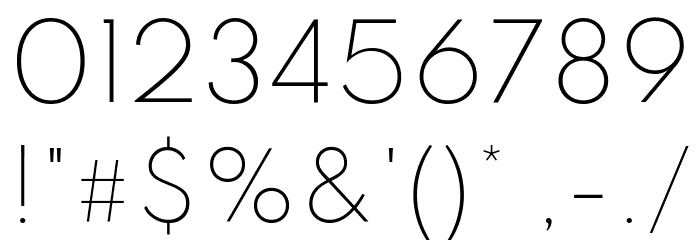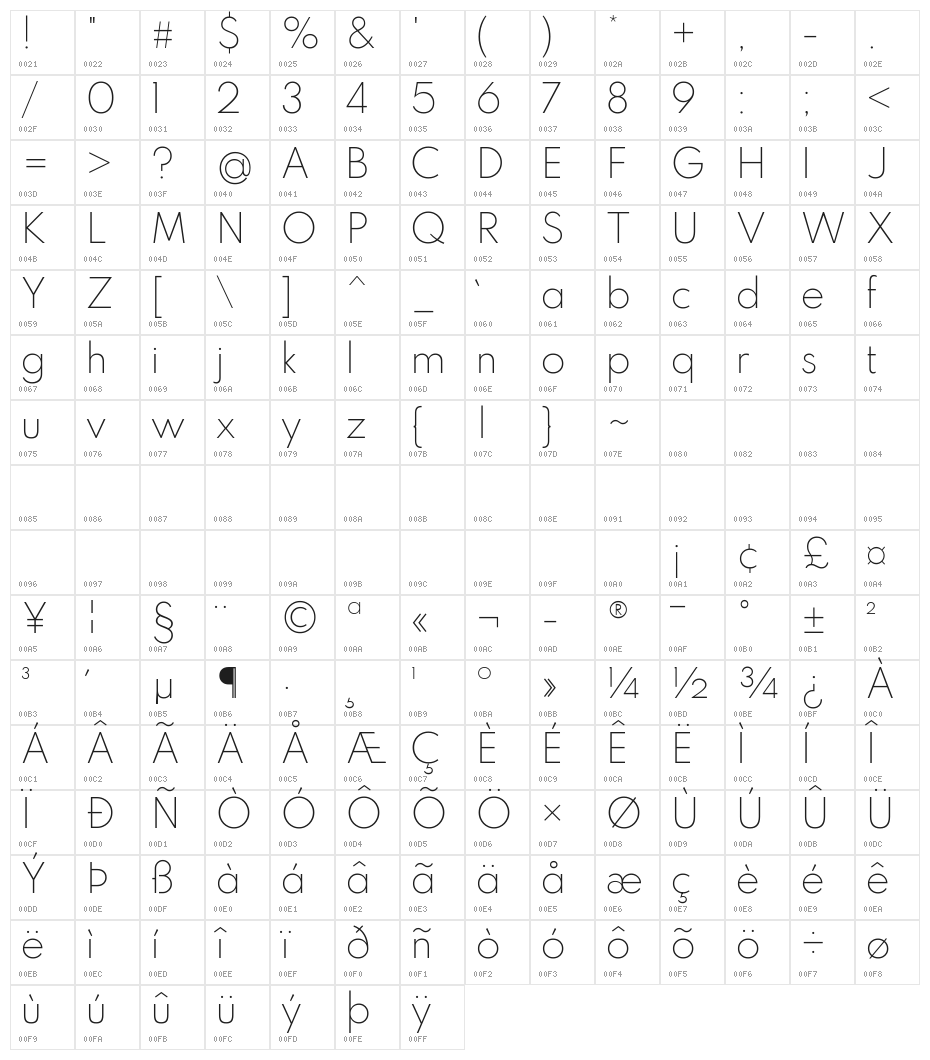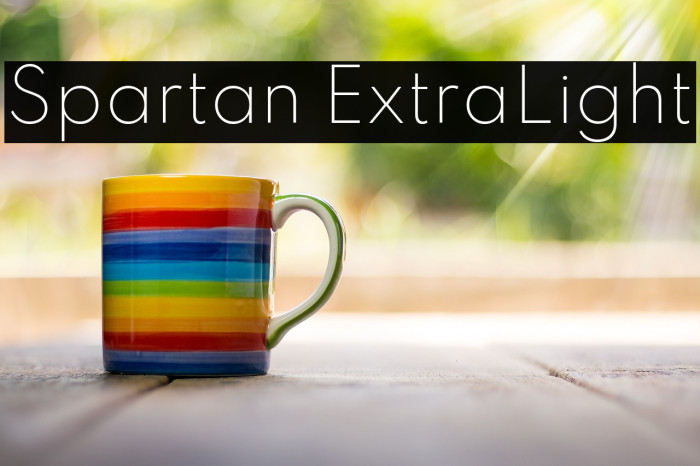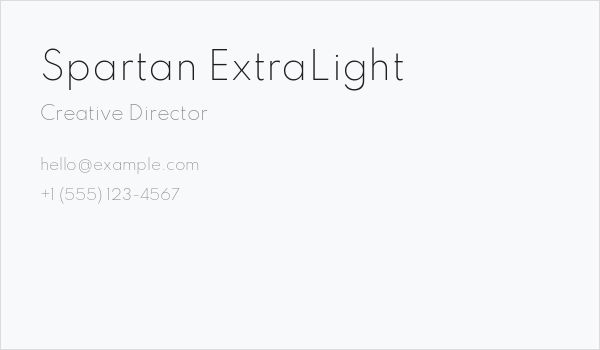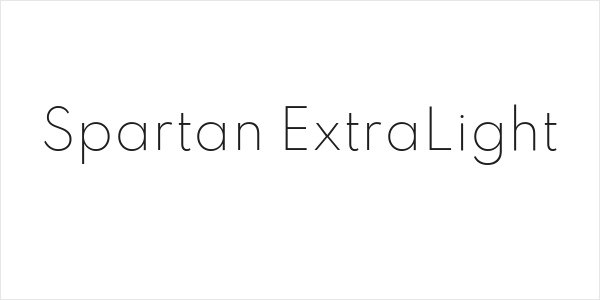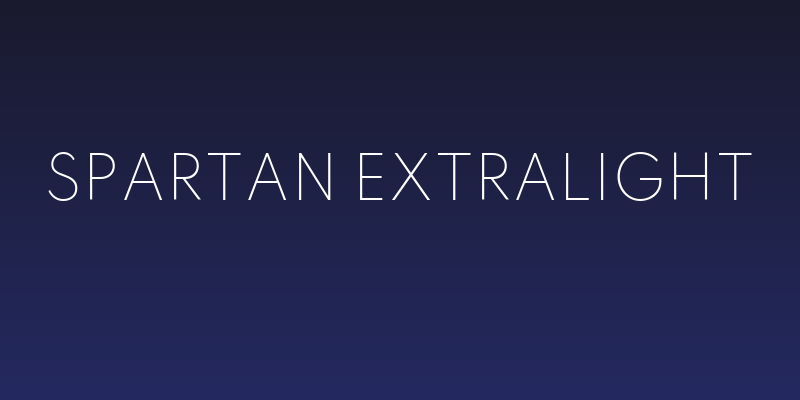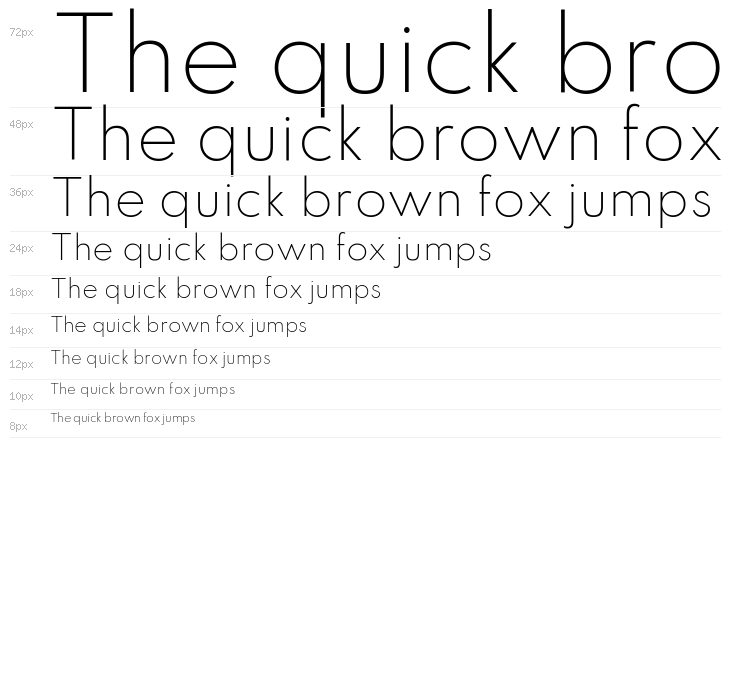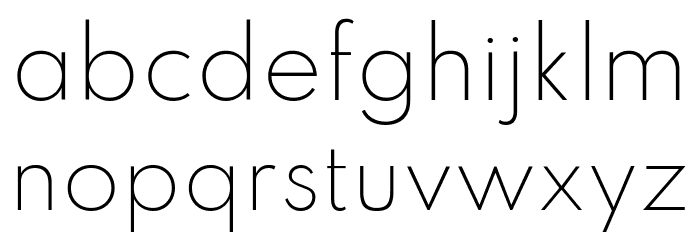
Spartan ExtraLight Font
Spartan ExtraLight Description
This font features a clean and minimalist design with a geometric structure. The characters are evenly spaced, providing a balanced and harmonious appearance. The strokes are consistent in width, contributing to a uniform look across all letters and numbers. The uppercase and lowercase letters maintain a similar height ratio, enhancing readability. The font's simplicity and elegance make it versatile for various design applications. Its modern aesthetic is suitable for contemporary projects, offering a sleek and professional feel.
| Proposed Projects | Ideal for branding, editorial design, digital interfaces, and minimalist posters. |